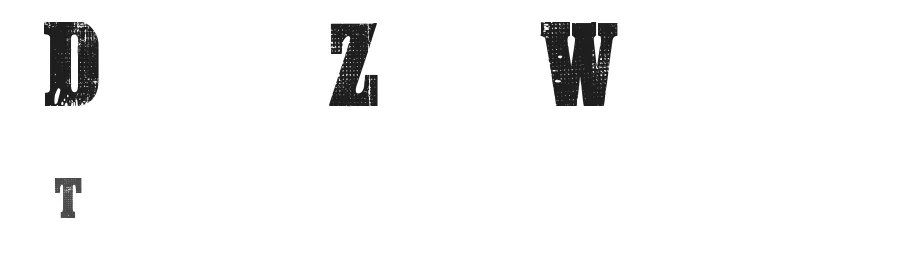
About College Block Font
by Sharkshock
WAKE UP!! Class is in session! College Block is a modified version of Blockletter Tall featuring many new glyphs and of course serifs reminiscent of that used on collegiate sweatshirts. Kerning and European accents are included. Use it for your own tees or campus project.
College Block Font is a decorative font that shines as a display or heading face. Pair it with a clean sans-serif or serif font for body text β the contrast creates a clear hierarchy while the two styles stay balanced and easy to read.
College Block Font
by Sharkshock